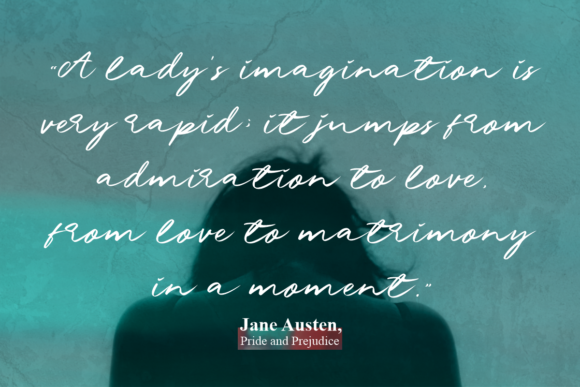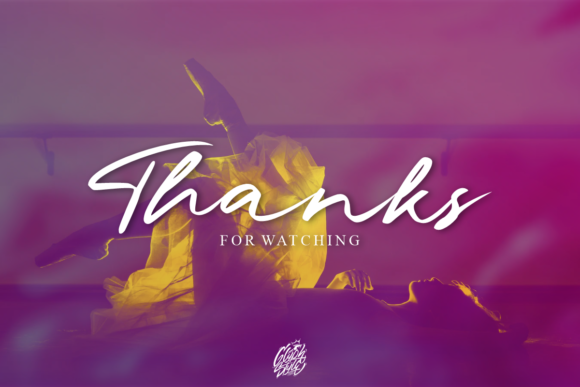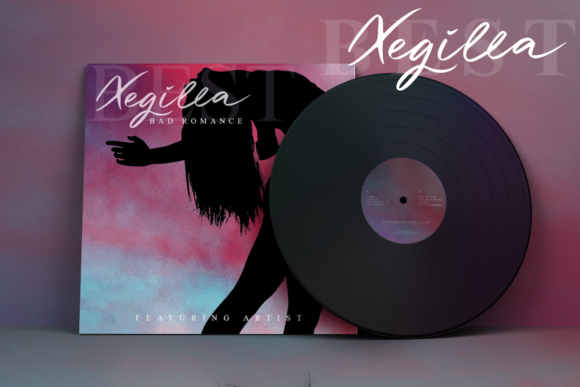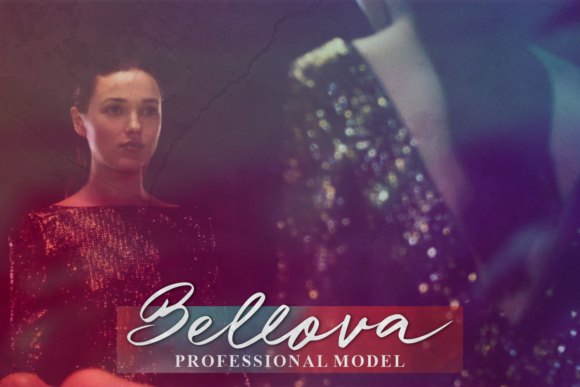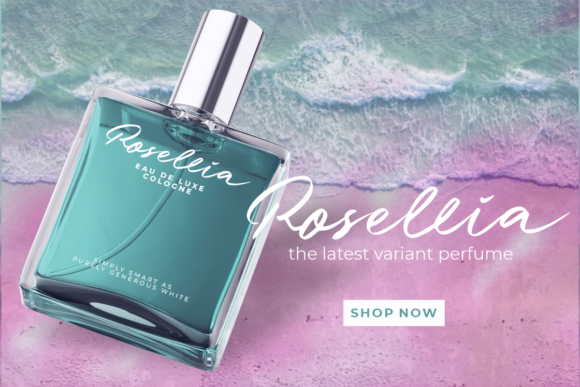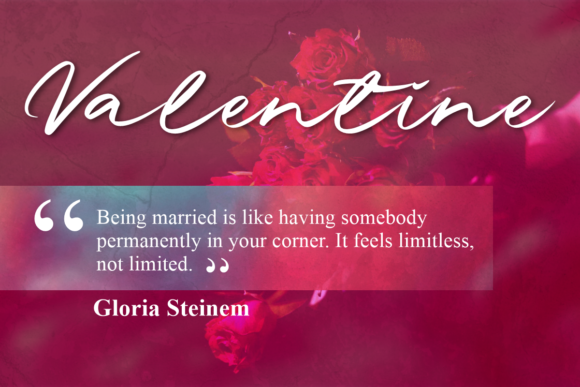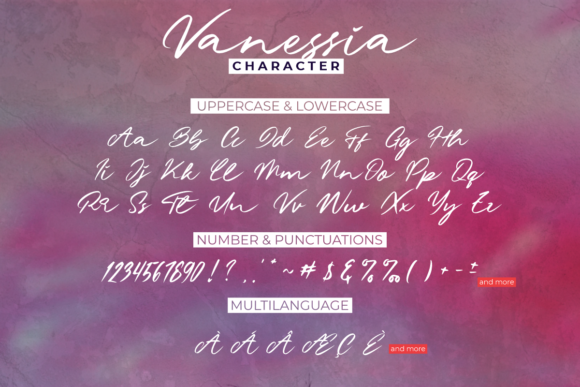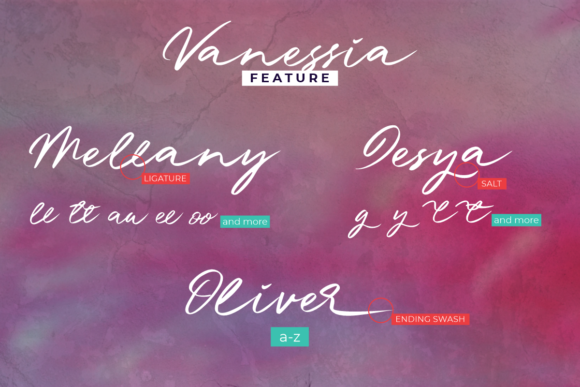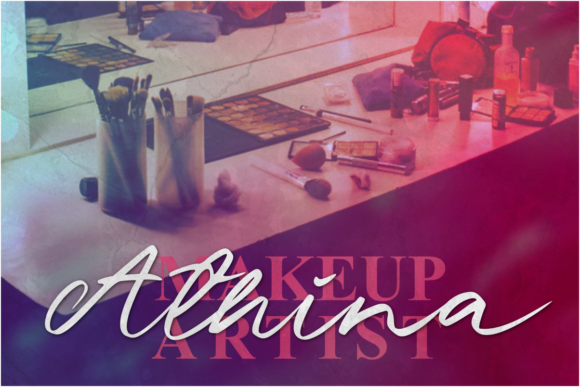
Vanessia Font
About Vanessia Font
Vanessia is a delicate, elegant and flowing handwritten font. It has beautiful and well balanced characters and as a result, it matches a wide pool of designs. Add it to your most creative ideas and notice how it makes them come alive!